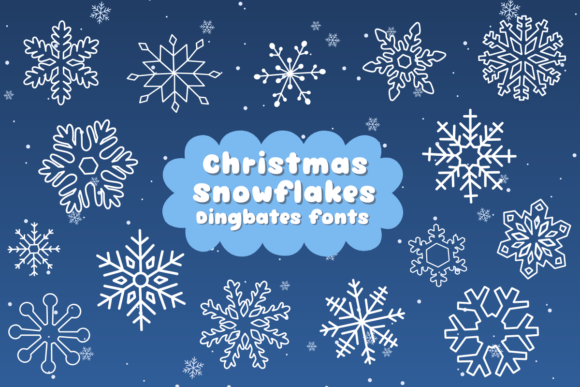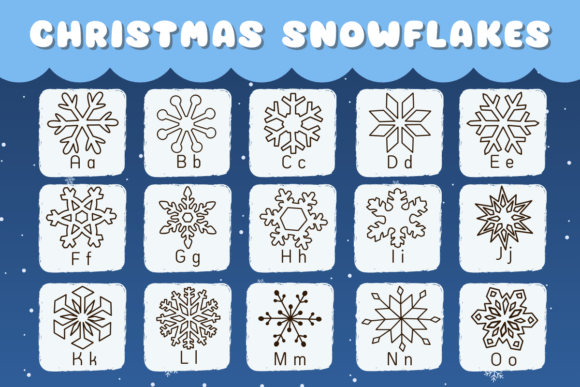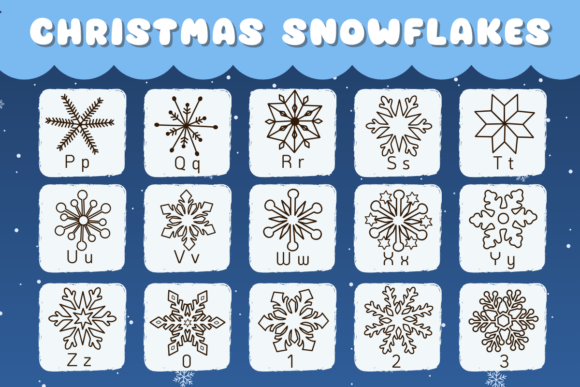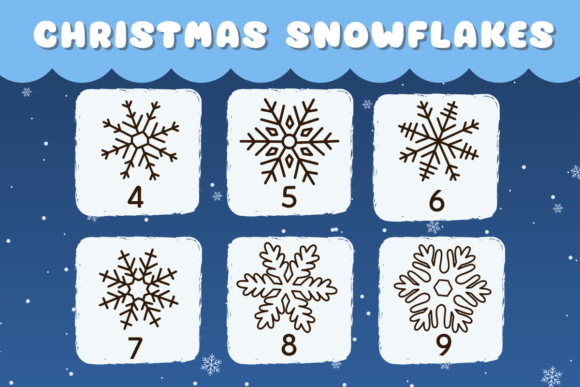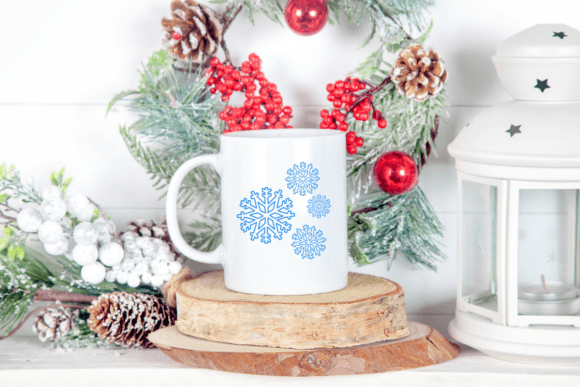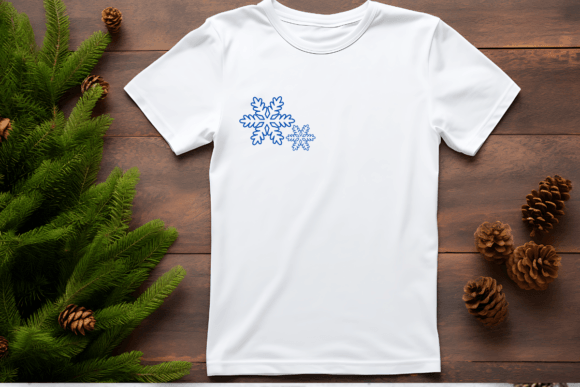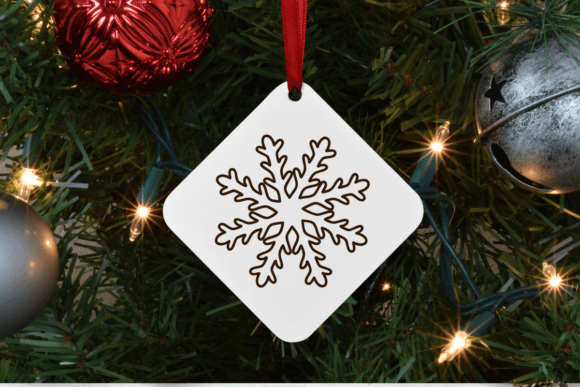
Get Ready to Sparkle Your Holiday Designs with Christmas Snowflakes Font
As I sit by the fireplace, sipping hot cocoa and brainstorming ideas for this year’s holiday cards, I’m reminded of the magic that happens when creativity meets winter wonder. The twinkling lights, the soft snowfall, and the cozy atmosphere all come together to inspire me to create something truly special. And that’s when I turn to the perfect tool: the Christmas Snowflakes Font.
This fun dingbat font is a treasure trove of unique snowflake designs, each one a delightful addition to your holiday projects. Whether you’re designing cards, decorations, or festive designs, the Christmas Snowflakes Font is the perfect way to add a touch of winter whimsy. As a designer, you know the value of a well-chosen font, and this one is sure to bring a smile to your clients’ faces.
Christmas Snowflakes Font Key Features
- Unique Characteristic: Delicate, hand-drawn design featuring intricate snowflakes and festive details, perfect for holiday-themed projects.
- Special Characters: Includes a range of festive characters, such as snowflakes, stars, and ornaments, to add a touch of holiday magic to designs.
Designer Review: Christmas Snowflakes Font
I was excited to dive into the Christmas Snowflakes Font and see what it had to offer. Here’s my honest review.
- The font is incredibly festive and perfect for any holiday-themed project.
- The snowflake design is delicate and intricate, adding a touch of whimsy to any text.
- The font is highly customizable, allowing you to adjust the size, color, and even the level of intricacy to suit your needs.
- The font may be too ornate for some designs, potentially overwhelming the overall aesthetic.
- The snowflake design can be difficult to read at small font sizes, making it challenging for body text.
- The font may not be suitable for corporate or professional branding, as it may come across as too playful.
Overall, I think the Christmas Snowflakes Font is a great choice for any holiday-themed project, but may not be the best fit for every design. With some careful planning and consideration, it can add a touch of magic to any project.
Use the Christmas Snowflakes font to add a festive touch to your holiday designs, such as:
Christmas cards, invitations, and gift tags
Holiday social media graphics and posts
Decorative title pages and headers